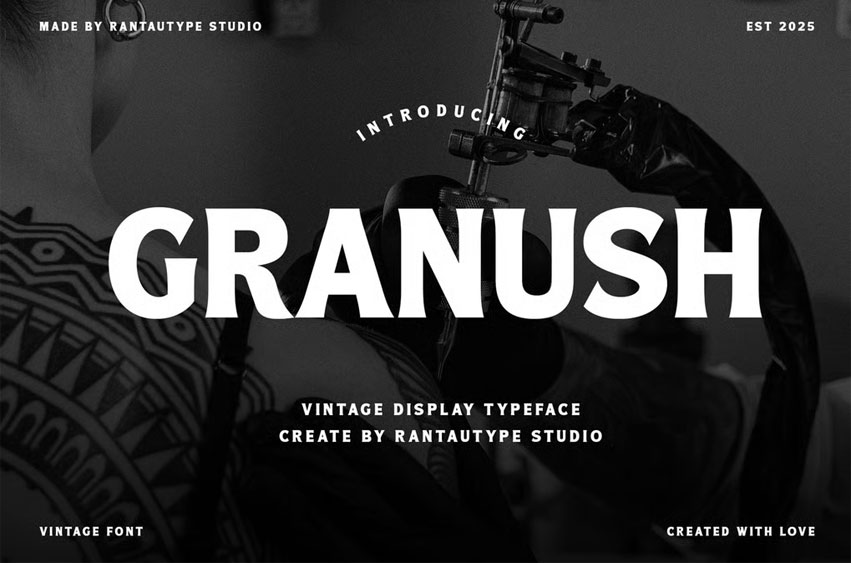
Granush Font is more than just a typeface; it’s inspired by tattoo culture, blending bold strokes and handcrafted charm into every letterform. The font’s nostalgic vibe evokes imagery of sailors, barbershops, biker culture, and timeless inked motifs. Yet, it remains highly adaptable in contemporary contexts, easily blending into modern layouts without losing its vintage soul.
Granush is a perfect choice for any creative endeavor, chic lifestyle design, such as logotype, advertisements, watermark on photography, stationery, branding project, display and magazine, invitation, corporate brand, product design, label, business project, and many other projects with a vintage touch.